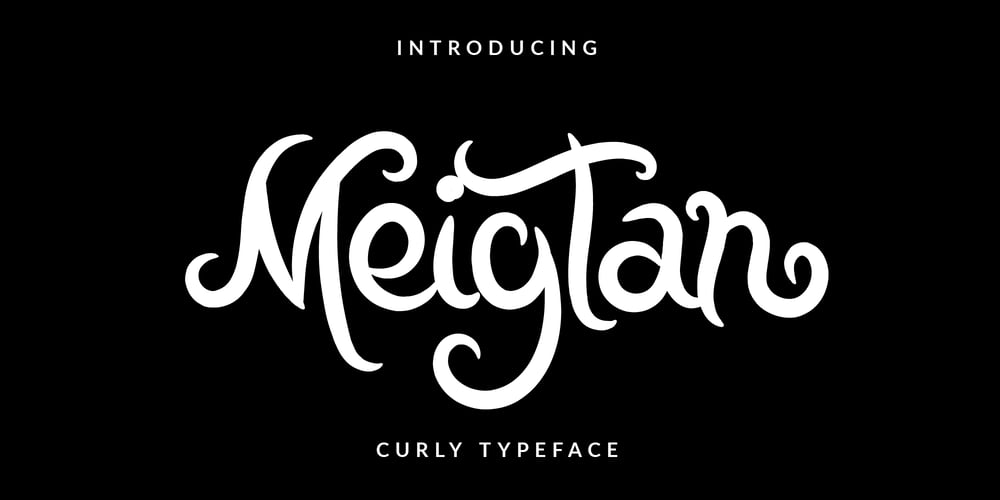
Meigtan
Meigtan font
Meigtan Font Family was designed by Fiki Ahmadi and published by Dicubit. Meigtan contains 2 styles and family package options. Meigtan is a curly typeface/font designed with carefully handcrafted. This perfectly made to be applied in logo or branding, stationery, books, packaging, fashion, magazines, t-shirt, greeting or wedding cards, vintage design, novels, labels and many advertising purposes.